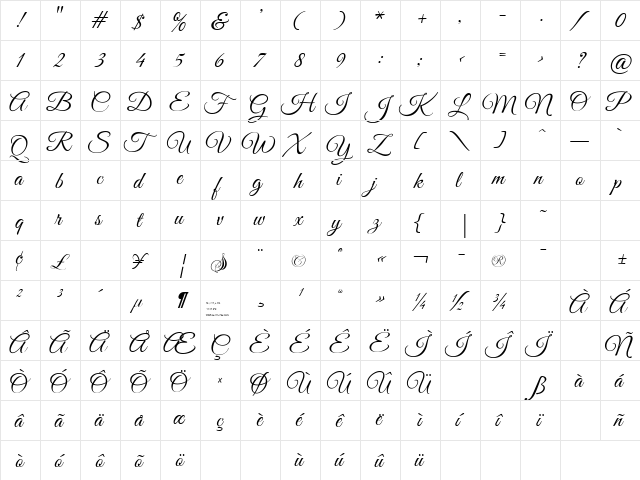
GoodVibrationsROB Script
| Style | Script |
Design Context for GoodVibrationsROB Typeface
GoodVibrationsROB brings a calligraphic fluidity to the page — its connecting strokes and expressive curves give it an unmistakably human quality.